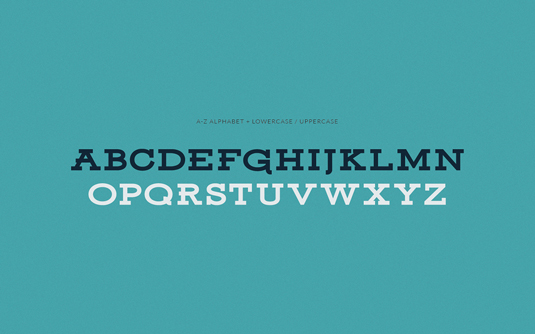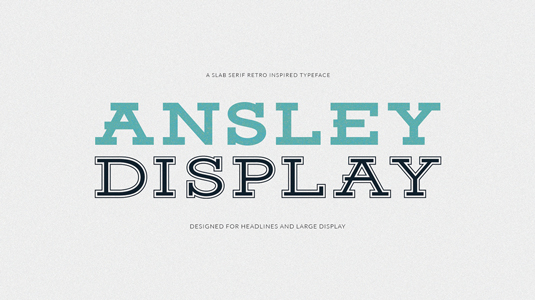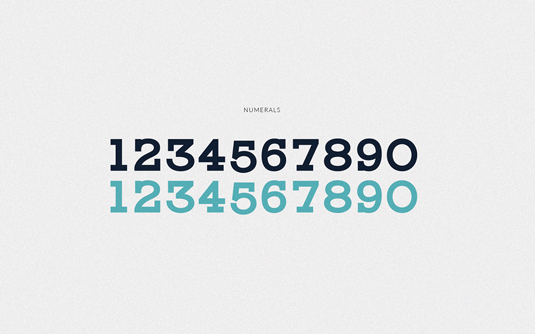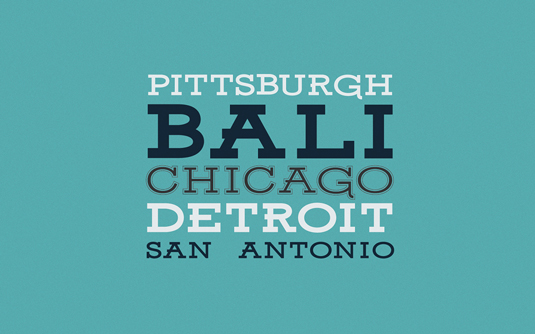
Font of the day: Ansley
Ansley by Kady Jesko
Graphic designer Kady Jesko created today's typeface of choice, Ansley, after searching for a free retro-style font and couldn't find one that suited. Jesko now generously offers it as a free download for both personal and commercial use, with donations, as ever, gratefully received.